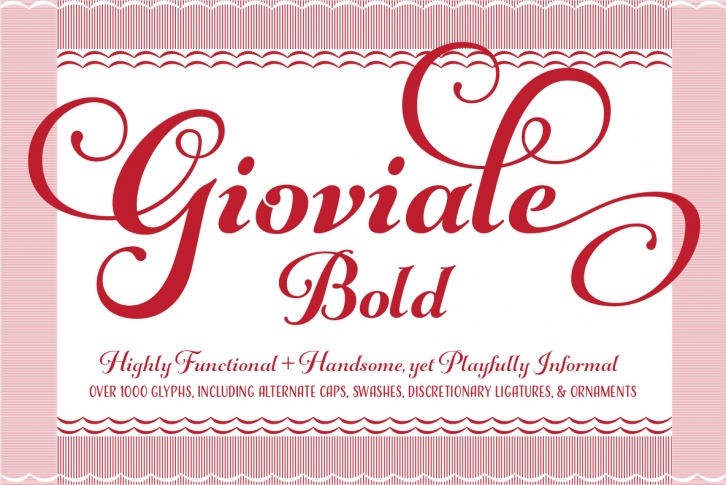
Gioviale Bold is a beautiful font that was designed by Laura Worthington Type. It's a great choice for designers and creatives who need such a font. It was released on July 7, 2016 and the file size is 4.39 MB. Gioviale Bold may give a more youthful, expressive and casual look to your project. It is a very beautiful, refined, elegant, and high-quality font.